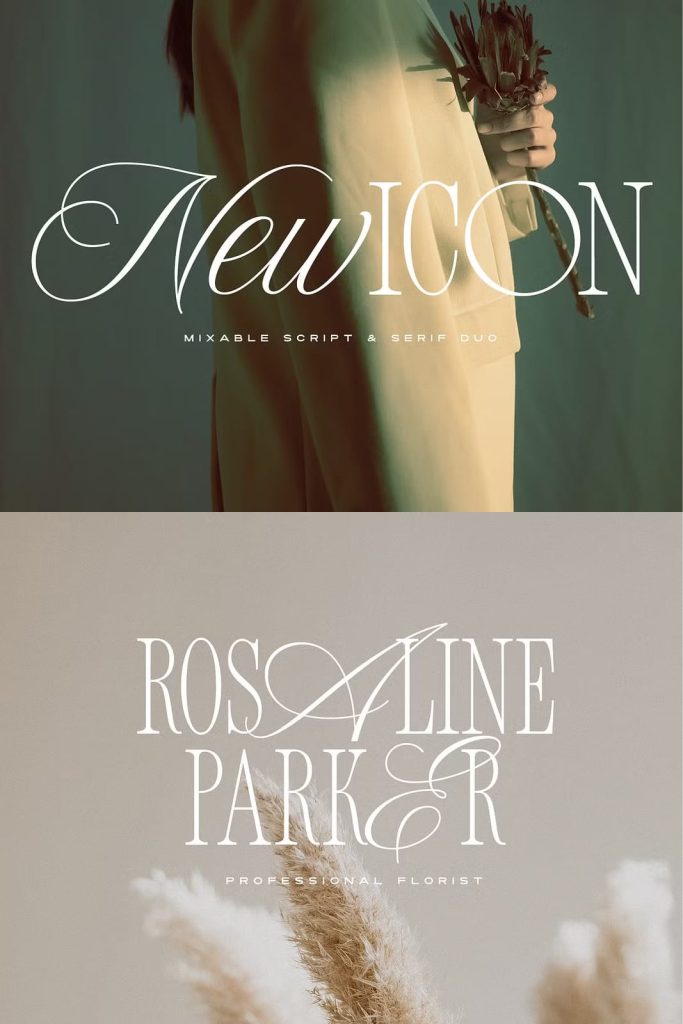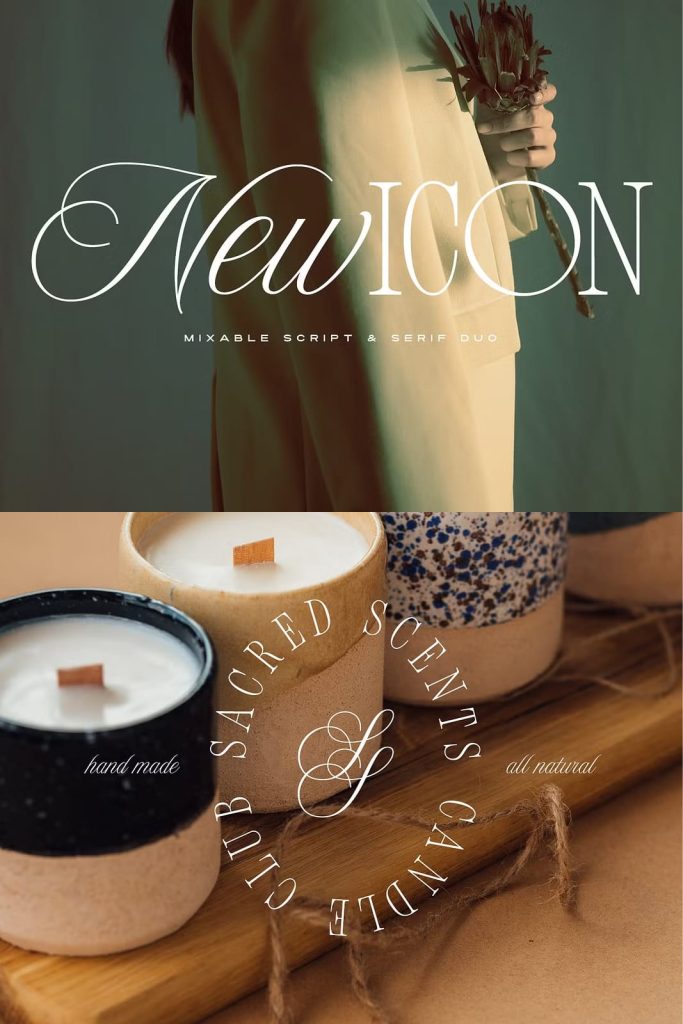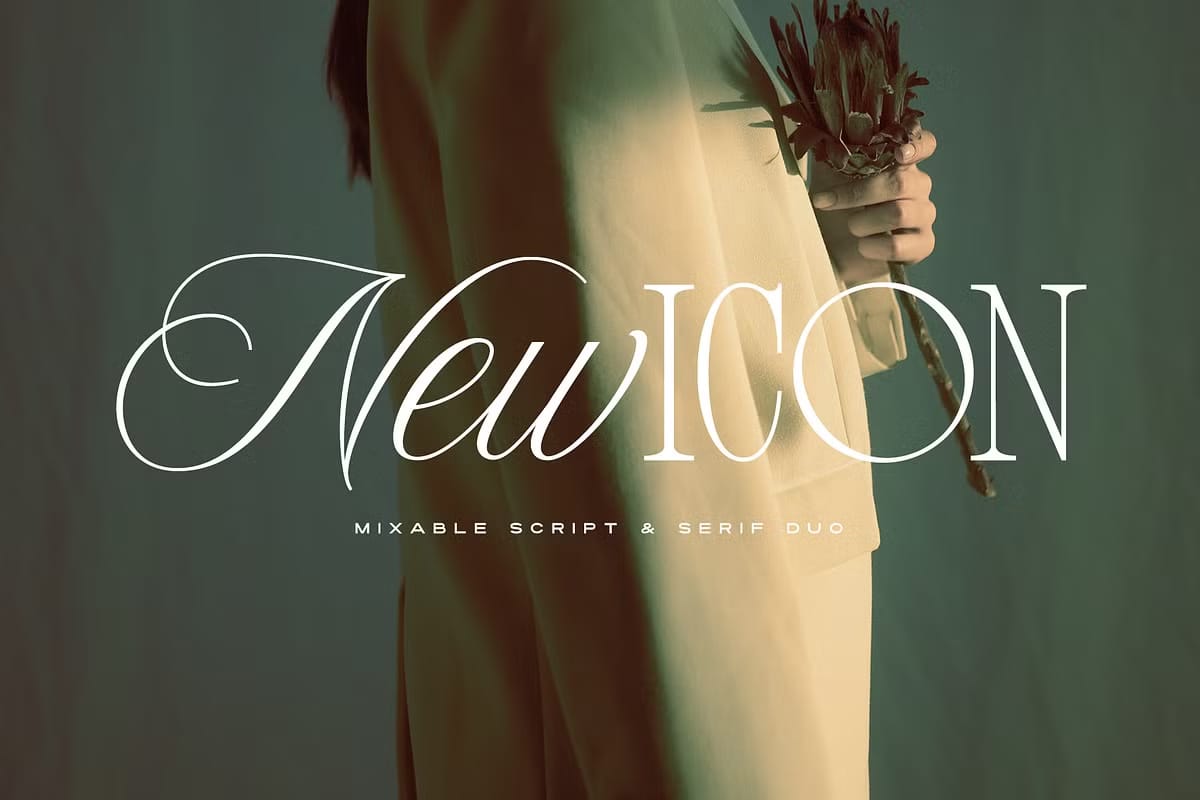
New Icon Font Duo (Updated!)dezzignerJune 13, 2025Fonts This luxury script and timeless serif are perfectly designed for one another-not only are they strong standalone fonts Download